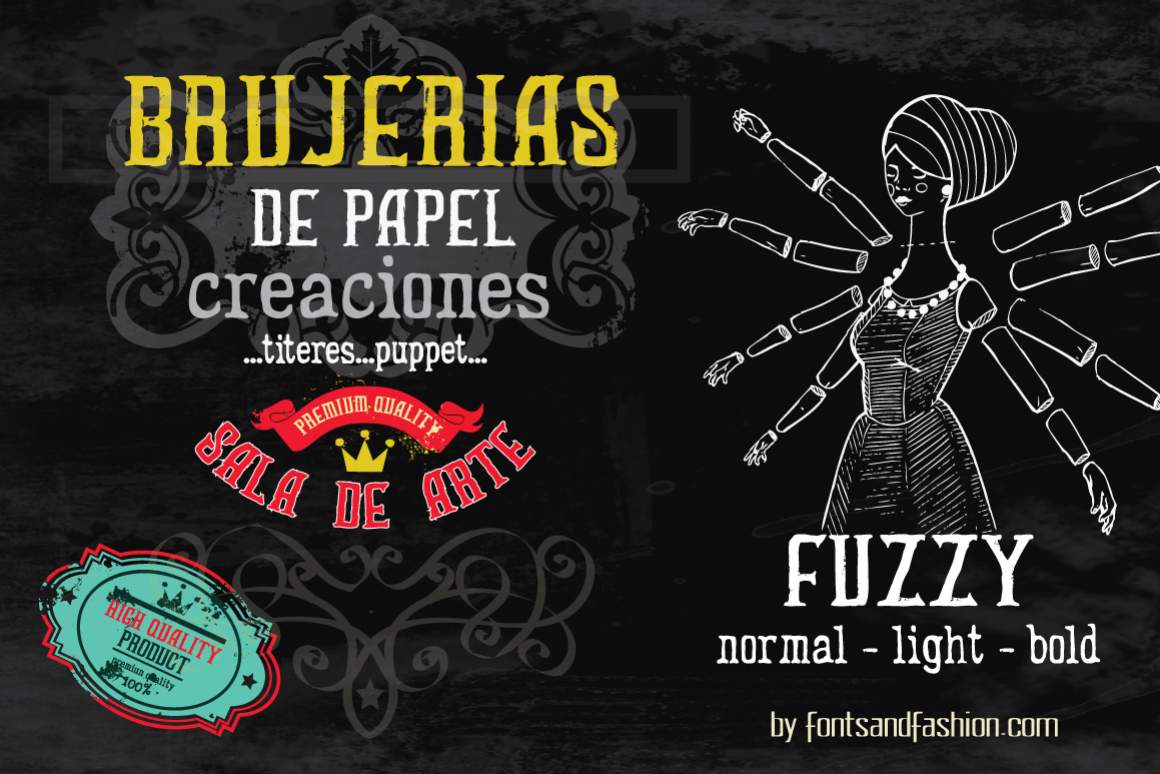
Fuzzy family
Fuzzy is a family of fonts with irregular and, at the same time, blurry lines . These two opposite features together can offer you the opportunity to use this lettering both for traditional and more innovative forms of expression, but in a modern and up-to-date context... It's an elegant font that will give your works a touch of sophistication and refinement.
This pack has three different versions :
- normal
- light
- bold
to broaden and diversify your opportunities to use this font... It's perfect for prints, labels, posters, etc... the Fuzzy Wine version gives you the opportunity to use graphics from the world of wine...What else can we say but “Cheers!”...